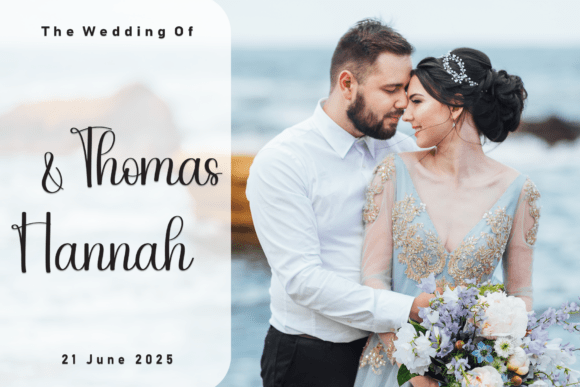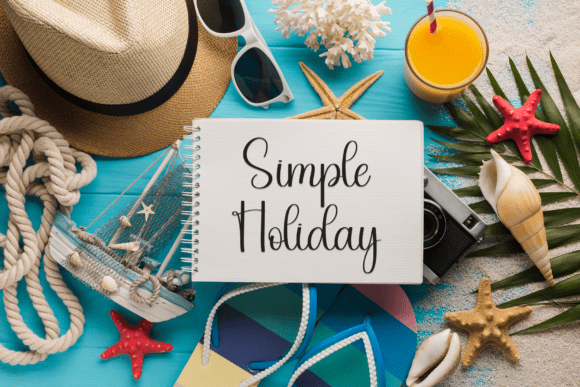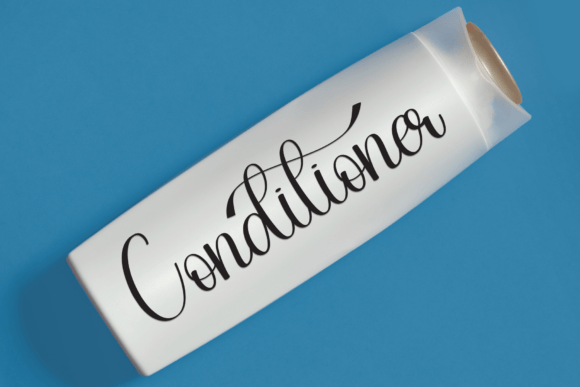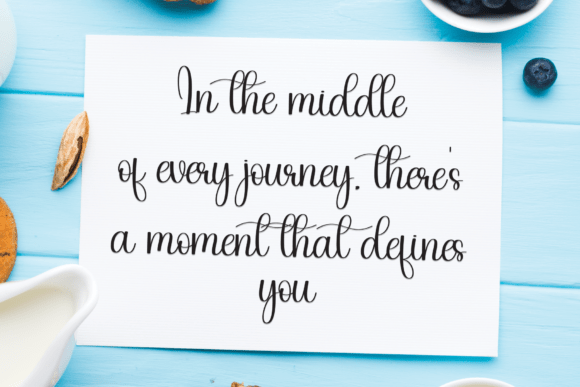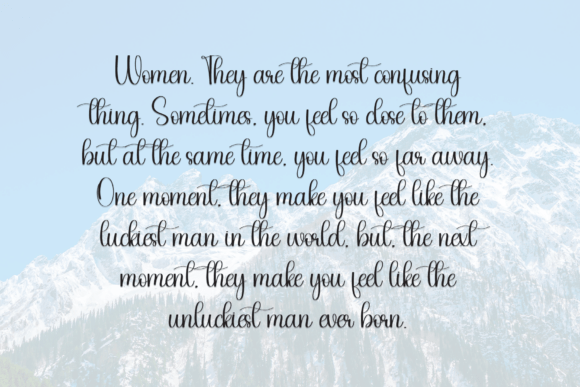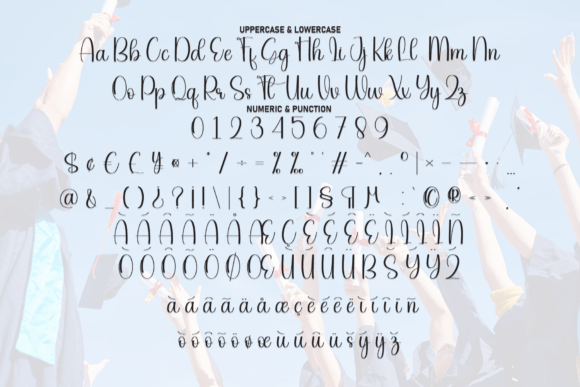
Introducing Graduation Font: Elevate Your Designs with Artistic Flair and Contemporary Elegance
Are you tired of using the same old fonts in your designs? Look no further! Graduation Font is here to revolutionize the way you approach typography. This stunning script font is the perfect blend of artistic flair and contemporary elegance, making it an ideal choice for designers and crafters looking to add a touch of sophistication to their work.
The Art of Hand-Painted Calligraphy with a Modern Twist
Graduation Font is inspired by the beauty of hand-painted calligraphy, but with a modern twist. The font features fluid brush strokes, dynamic curves, and expressive letterforms that give it a unique and artistic feel. The natural flow of the font is reminiscent of handwritten calligraphy, but with a level of precision and consistency that makes it perfect for digital designs.
Key Features of Graduation Font
- Fluid Brush Strokes: Graduation Font features fluid brush strokes that give it a natural, hand-painted look.
- Dynamic Curves: The font’s dynamic curves add a level of sophistication and elegance to any design.
- Expressive Letterforms: Each letterform is carefully crafted to convey a sense of artistic flair and creativity.
- Modern Twist: The font’s modern twist makes it perfect for contemporary designs and digital applications.
Ideal for a Variety of Design Applications
Graduation Font is incredibly versatile and can be used for a wide range of design applications. Here are some ideas to get you started:
- Logos: Create a stunning logo for your business or brand with Graduation Font.
- Invitations: Add a touch of elegance to your invitations with this beautiful script font.
- Packaging: Use Graduation Font to create eye-catching packaging that stands out on store shelves.
- Social Media Graphics: Elevate your social media graphics with the artistic flair and contemporary elegance of Graduation Font.
Benefits of Using Graduation Font
So why choose Graduation Font for your designs? Here are just a few benefits of using this stunning script font:
- Visual Impact: Graduation Font delivers a significant visual impact, making it perfect for designs that need to stand out.
- Versatility: The font’s versatility makes it suitable for a wide range of design applications.
- Creative and Sophisticated: Graduation Font adds a creative and sophisticated touch to any design, making it perfect for designers and crafters who want to elevate their work.
Tips for Using Graduation Font Effectively
To get the most out of Graduation Font, here are a few tips to keep in mind:
- Use it Sparingly: Graduation Font is a statement font, so use it sparingly to avoid overwhelming your design.
- Experiment with Colors: The font’s fluid brush strokes and dynamic curves look stunning in a variety of colors, so don’t be afraid to experiment.
- Pair it with Other Fonts: Graduation Font pairs well with a variety of other fonts, so feel free to get creative with font combinations.
In conclusion, Graduation Font is a stunning script font that is sure to elevate your designs with its artistic flair and contemporary elegance. With its fluid brush strokes, dynamic curves, and expressive letterforms, it’s the perfect choice for designers and crafters looking to add a touch of sophistication to their work. Whether you’re creating logos, invitations, packaging, or social media graphics, Graduation Font is the perfect choice.